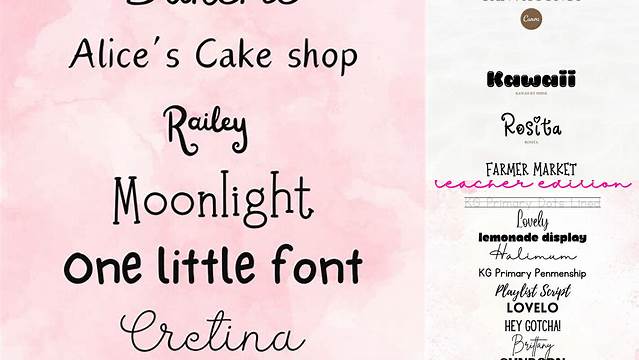
Cute Canva Fonts For Numbers: Your Design Guide
Hey guys! Ever wanted to make your numbers pop in your Canva designs? Well, you're in the right place! We're diving deep into the world of cute Canva fonts for numbers, exploring how you can transform those ordinary digits into eye-catching elements. Whether you're designing social media graphics, presentations, or even invitations, choosing the right font for your numbers can significantly impact your overall aesthetic. Let's get started on how to find the perfect fonts and make your designs look absolutely adorable.
Finding the Perfect Cute Canva Fonts for Numbers
When searching for cute Canva fonts for numbers, don't overlook the little details, guys. Check out how the numbers are shaped. Are the counters (the enclosed spaces within the numbers) open or closed? Do the numerals have unique features, like a curved "2" or a swirly "7"? Look for fonts with a distinctive personality. These unique elements can help your numbers stand out and add an extra layer of charm to your designs. In addition to the built-in Canva fonts, you can also upload your own fonts! If you have a specific font in mind, you can search for it online and upload the font file (usually .ttf or .otf) to Canva. This opens up a whole new world of font possibilities. You can explore font websites like Google Fonts, DaFont, or Font Squirrel to find a unique font that perfectly matches your style. Be sure to check the licensing terms before using any downloaded fonts, though. Some fonts are free for personal use, while others may require a commercial license. The whole process is super fun, and the perfect font makes a difference. So, go explore, experiment, and have fun creating cute and engaging designs!
Top Cute Canva Fonts for Numbers
Okay, let's get into some of my favorite cute Canva fonts for numbers. I've handpicked a few that I think are absolutely adorable and perfect for various design purposes. Remember, the best font will depend on your specific needs and the overall style of your design, so feel free to mix and match these or use them as inspiration to discover your own unique favorites.
Playful and Whimsical Fonts
If you want to add a touch of playfulness and fun to your numbers, then look no further than these fonts! They are perfect for children's designs, social media posts, and anything that needs a lighthearted touch. Bubblegum Sans: As the name suggests, this font is all about fun! It has a rounded and bubbly appearance, making your numbers look cheerful and inviting. It's perfect for kids' designs, party invitations, and anything that calls for a playful touch. Use Bubblegum Sans if you want your numbers to pop with happiness and charm. Chewy: This font is a handwritten-style font that adds a touch of personality and warmth. It's slightly irregular, which makes it feel authentic and approachable. Chewy is a fantastic choice for creating a friendly and relatable aesthetic. Use it for social media graphics, quotes, or any design where you want to convey a sense of warmth and personality. Luckiest Guy: This font looks handwritten, with its bold strokes and slightly uneven appearance. It exudes a sense of happiness and optimism, making it perfect for uplifting and positive designs. Consider using Luckiest Guy for motivational quotes, greetings, or anything that should spread some good vibes. These are all great fonts that are cute and simple to use, so that you can create the perfect design.
Elegant and Stylish Fonts
Want to give your numbers a more sophisticated and stylish look? Check out these fonts for a touch of elegance and class. They are ideal for presentations, formal invitations, and designs that require a polished aesthetic. Poppins: This font is a versatile and clean sans-serif font with a contemporary design. It offers a wide range of weights, so you can customize the font weight based on your needs. Poppins is great for creating a clean, modern aesthetic, making it suitable for business presentations, websites, and all designs that require clarity and professionalism. Josefin Sans: This font is a refined sans-serif font with a timeless appeal. Its tall and slender characters exude elegance and sophistication. Josefin Sans is perfect for creating invitations, formal announcements, and any design where you want to convey a sense of sophistication and style. Playfair Display: This font is a serif font that is designed with contrast and elegance. It has a stylish look with a classic appeal. Playfair Display is a good choice when you want to add a touch of refinement and style to your numbers. Use it for headings, quotes, and designs that need a luxurious touch. These fonts are a good combination if you want a cute but elegant design.
Handwritten and Unique Fonts
If you're looking for something unique and personal, these handwritten fonts are a great way to make your numbers stand out and add a touch of individuality. They're perfect for designs that require a touch of authenticity and charm. Amatic SC: This font features hand-drawn letters with uppercase characters. It's a simple font that can be used in any design. Amatic SC is a good choice when you want your numbers to be easy to read and add a touch of personality and charm to any design. Architects Daughter: This font provides a handwritten feel that makes your numbers look more relatable. The Architects Daughter font has a casual, approachable look, and is perfect for designs that require a friendly and personal touch. Use it in your invitations, social media posts, and any design that aims to create a warm connection with your audience. Caveat: This font is known for its unique and artistic feel. It has a touch of personality and warmth that makes your numbers stand out in any design. Caveat is a great choice for creating designs that want to create a lasting impact. Use it in your designs for greetings, and any design where you want to make a bold statement.
Tips for Using Cute Canva Fonts for Numbers
Now that you have some font ideas, let's go over some tips to make the most of them! Designing with these cute Canva fonts for numbers is all about making your numbers look amazing and integrated within your designs. Here's how to make it happen.
Font Pairing
When it comes to design, pairing fonts can make or break your look. A great idea is to combine your cute Canva fonts for numbers with a complimentary font for the rest of your text. Try pairing playful fonts with clean sans-serif fonts or mix elegant fonts with handwritten fonts. Also, think about the contrast. Make sure your fonts have a visual hierarchy that is easy to follow. Use the font for your numbers as a head or title, and then choose another font for the body text. This will help make your numbers stand out and make your design more visually appealing. Be sure to test out different font combinations and see what works best for you. Also, consider the overall tone and style of your design. If you're aiming for a fun and playful look, go with playful fonts. If you want a modern and professional look, choose modern fonts. The right font combination is sure to create an impactful design.
Size and Spacing
Size and spacing are important elements in any design. Always make sure that your numbers are easy to read. Adjust the font size based on your design. Make the number large and prominent for titles or headings, and adjust the size for supporting information. Experiment with the letter spacing and line height to achieve the desired look. Increase the letter spacing to make the numbers more airy and visually appealing. Change the line height to create a good visual flow. It's important to test your numbers on different devices. Remember that a design that looks good on a computer screen might not translate well on a mobile device. Preview your design on different devices and adjust the size and spacing as needed to make sure the numbers are always readable. This way, your design is accessible to all.
Color and Background
Conclusion: Embrace the Cuteness!
So, there you have it, guys! With these cute Canva fonts for numbers, you're well on your way to elevating your designs and making those digits look adorable. Remember to experiment with different fonts, play around with sizes and colors, and let your creativity run wild. The most important thing is to have fun and enjoy the design process. So get in there and start creating! Your designs will thank you for it. I hope this guide helps you find the perfect fonts and that you can create super cute designs! Now go on, unleash your inner designer, and make your numbers shine!